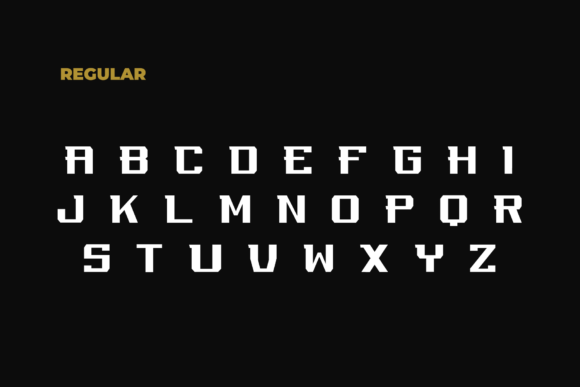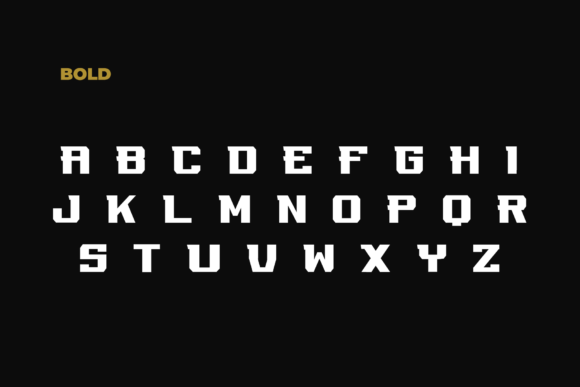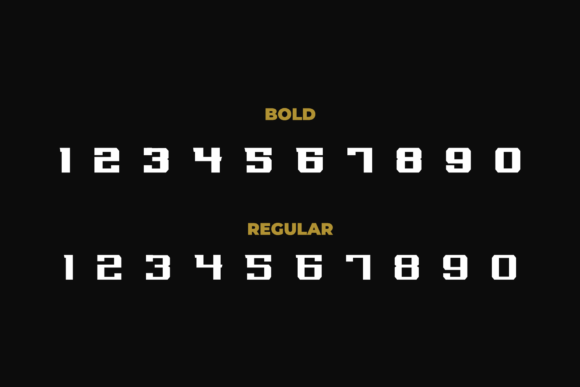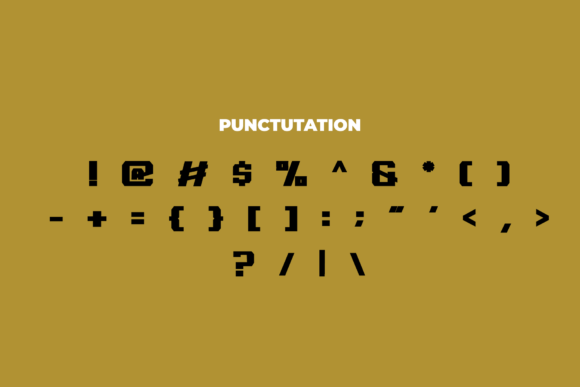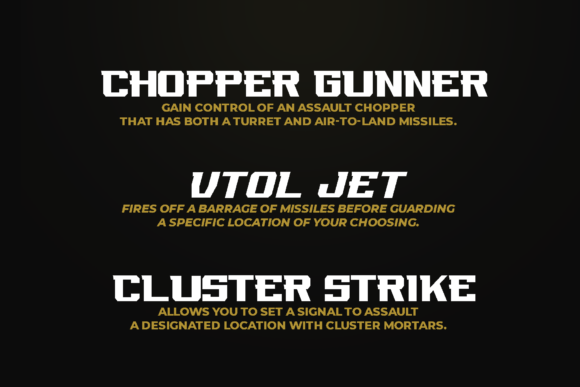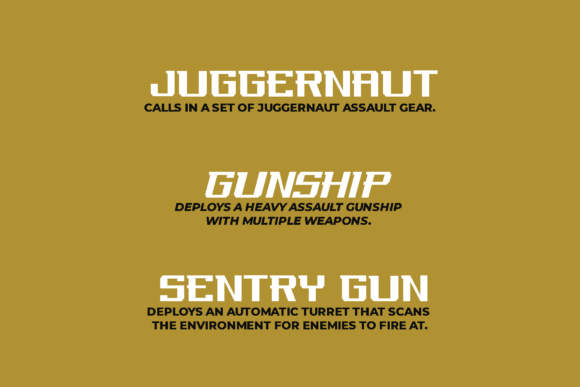
Introduction to Reguilon Font
Have you ever stared at a blank canvas, waiting for the perfect font to bring your creative project to life? That’s exactly what happened to me when I discovered the Reguilon Font. Its modern elegance and sophistication immediately caught my attention, and I knew I had to share it with fellow designers.
As a valuable design resource, the Reguilon Font offers a high-quality solution for any sports or team logo. Its sleek and stylish design makes it perfect for creative projects that require a touch of sophistication. One of the standout features of this font is its ability to work seamlessly with a transparent background, allowing designers to achieve a clean and professional look.
Whether you’re working on a personal project or a client assignment, the Reguilon Font is an excellent choice. Not only is it free to download, but it’s also incredibly versatile, making it a valuable addition to any designer’s toolkit. In this article, we’ll dive deeper into the world of Reguilon Font and explore its many uses and benefits.
Key Features of Reguilon Font
- High-quality font design for creative projects, ideal for designers and artists looking for a unique design resource.
- Features a transparent background, allowing for seamless integration into various design elements and creative projects.
- Includes multiple font weights and styles, providing versatility and flexibility for designers to express their creativity.
- Perfect for use in graphic design, digital art, and other creative pursuits where a unique and high-quality font is required.
Honest Review: Reguilon Font
As a designer, I’m always on the lookout for high-quality design resources that can elevate my creative projects. The Reguilon Font is one such resource that caught my attention. On the surface, it appears to be a well-designed font with a sleek and modern aesthetic. ✨
One of the standout features of the Reguilon Font is its transparent background, which makes it easy to use on both light and dark backgrounds. This versatility is a major plus, especially when working on complex designs. Additionally, the font is available for free download, which is a huge bonus for designers on a budget. ✨
- High-quality design with a modern aesthetic
- Transparent background for easy use on various backgrounds
However, there are some limitations to consider. ⚠️ The font may not be suitable for all types of creative projects, particularly those that require a more traditional or classic look. Additionally, the font may not be as comprehensive as some other design resources on the market.
Overall, I would give the Reguilon Font a solid 4 out of 5 stars. While it has its limitations, it’s a great resource for designers who want a high-quality, modern font for their creative projects. With its transparent background and free download option, it’s definitely worth checking out.
How to Use Reguilon Font
The Reguilon Font is a versatile and stylish design resource ideal for creative projects. With a transparent background and high-quality design, this font is perfect for adding a touch of sophistication to your work.
Using Reguilon Font in Popular Design Tools
You can use the Reguilon Font in a variety of design tools, including:
– Add the Reguilon Font to your presentations and documents for a unique and creative touch.
Tips for Getting the Most Out of Reguilon Font
To get the most out of the Reguilon Font, consider the following tips:
- Use the font in conjunction with other design elements to create a cohesive look.
- Combine the Reguilon Font with images or graphics to add visual interest.
The Reguilon Font is ideal for a variety of creative projects, including:
- Magazine and newspaper articles